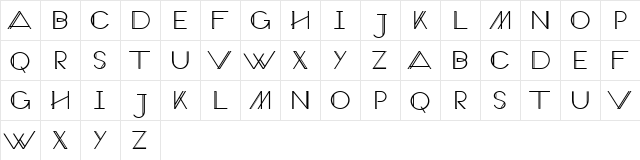
Veron Extra Regular
Design Context for Veron Extra Typeface
Veron Extra takes a measured approach to typography — its balanced proportions and neutral character make it a reliable workhorse for both digital and print work.
Pro Tip: Pair Veron Extra with a font of contrasting weight or personality to build a more expressive typographic hierarchy.